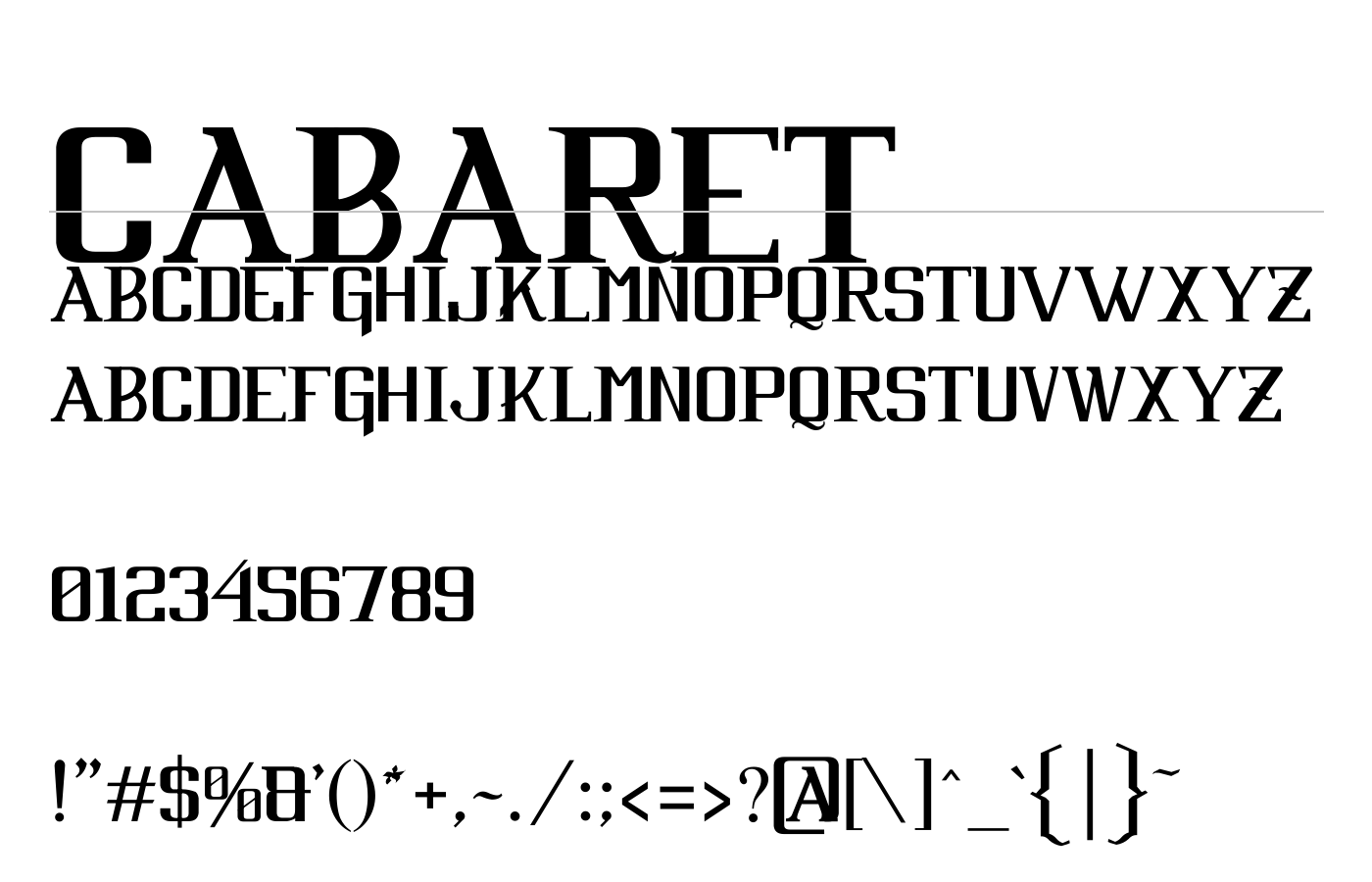
Cabaret is a distinctive serif font with a vintage flair, featuring high contrast between thick and thin strokes and elegant, unbracketed serifs that create a sharp and refined look. Its tall, narrow letterforms and unique details like the stylized Q tail and angular R leg give it a theatrical, art deco-inspired personality, making it ideal for eye-catching headlines, logos, and branding that seeks a bold, sophisticated statement. This font works beautifully in contexts where a touch of classic charm and drama is desired.
Cabaret Font
About Cabaret Font
| Font family | Cabaret Font |